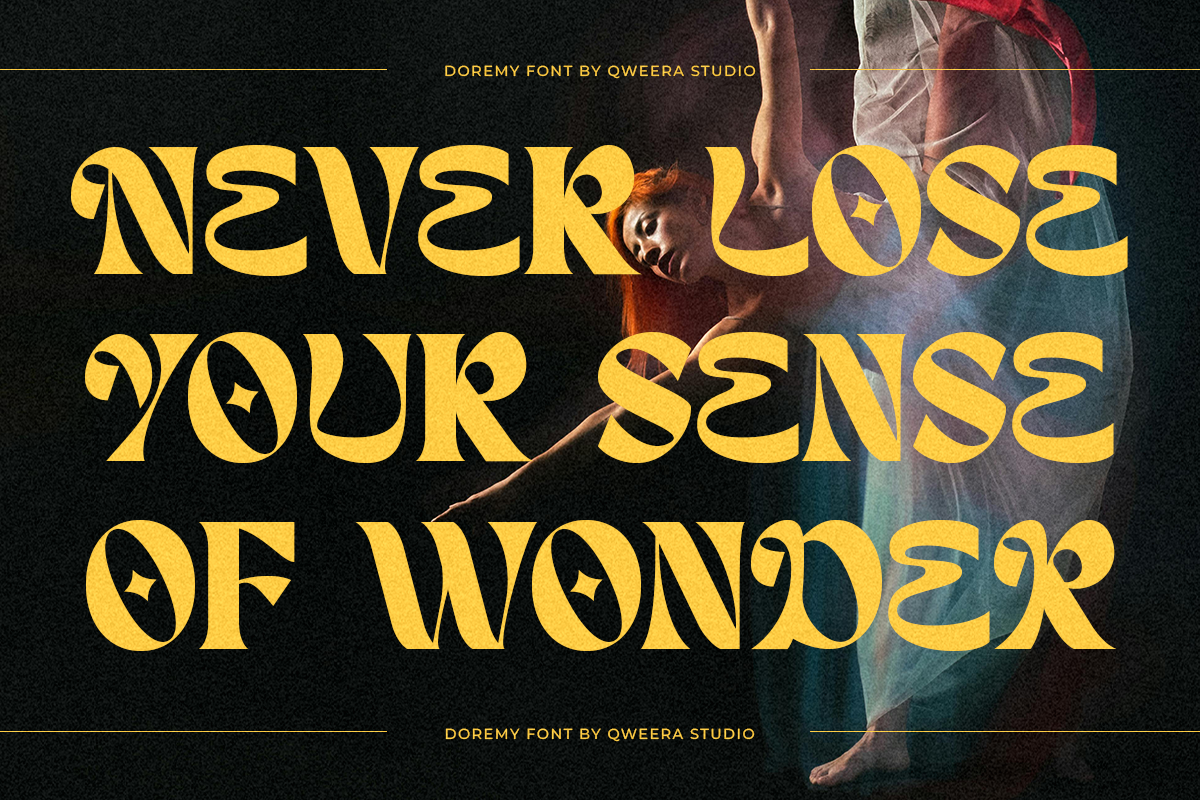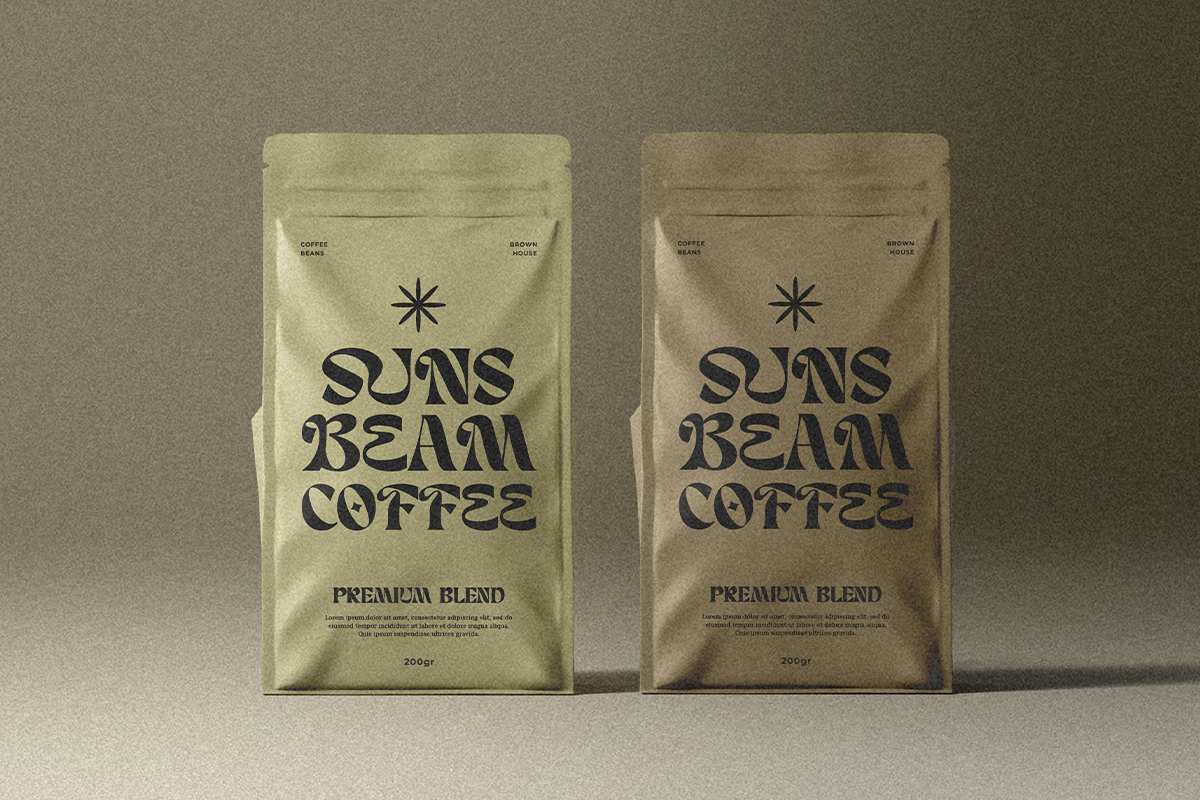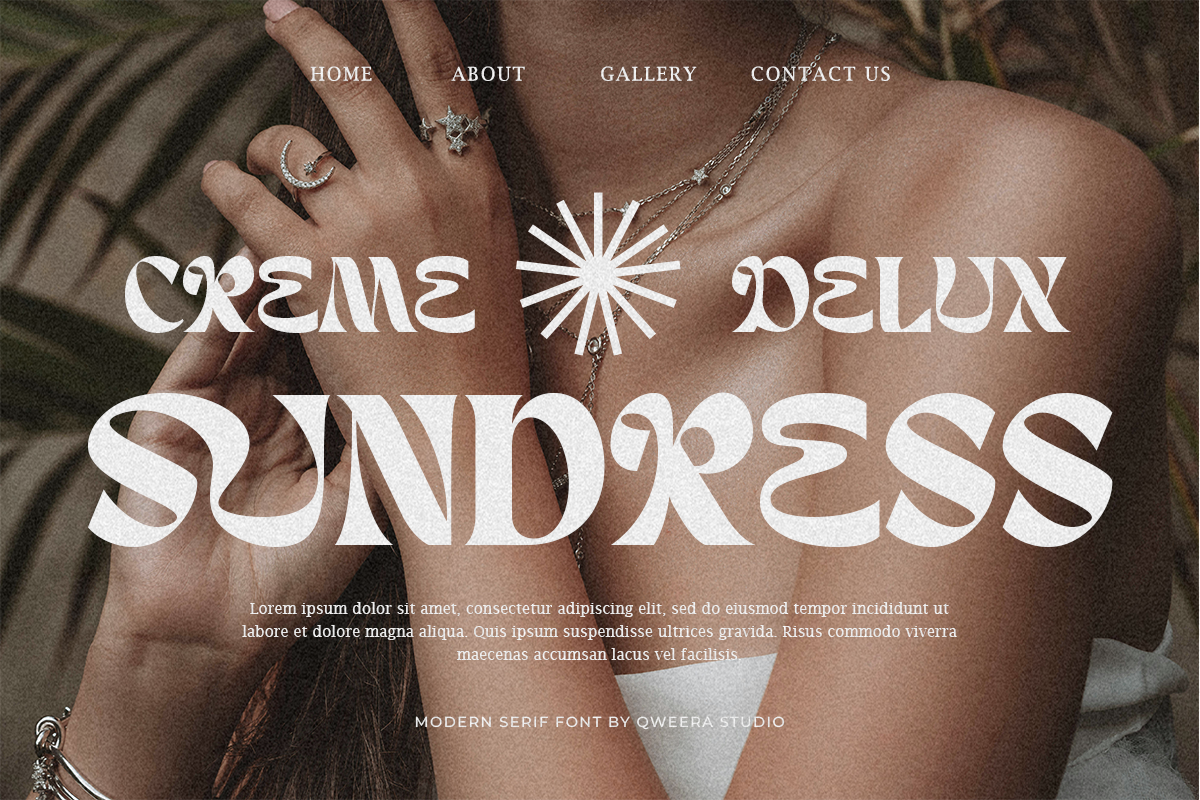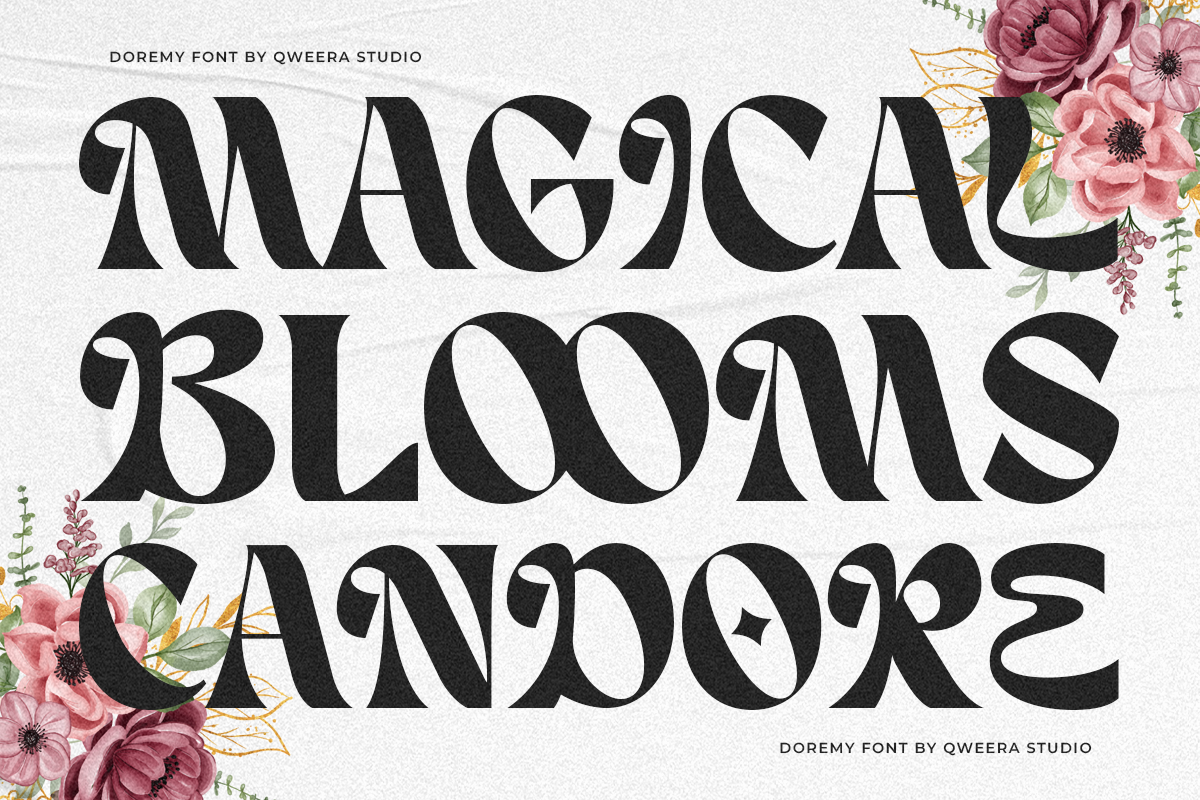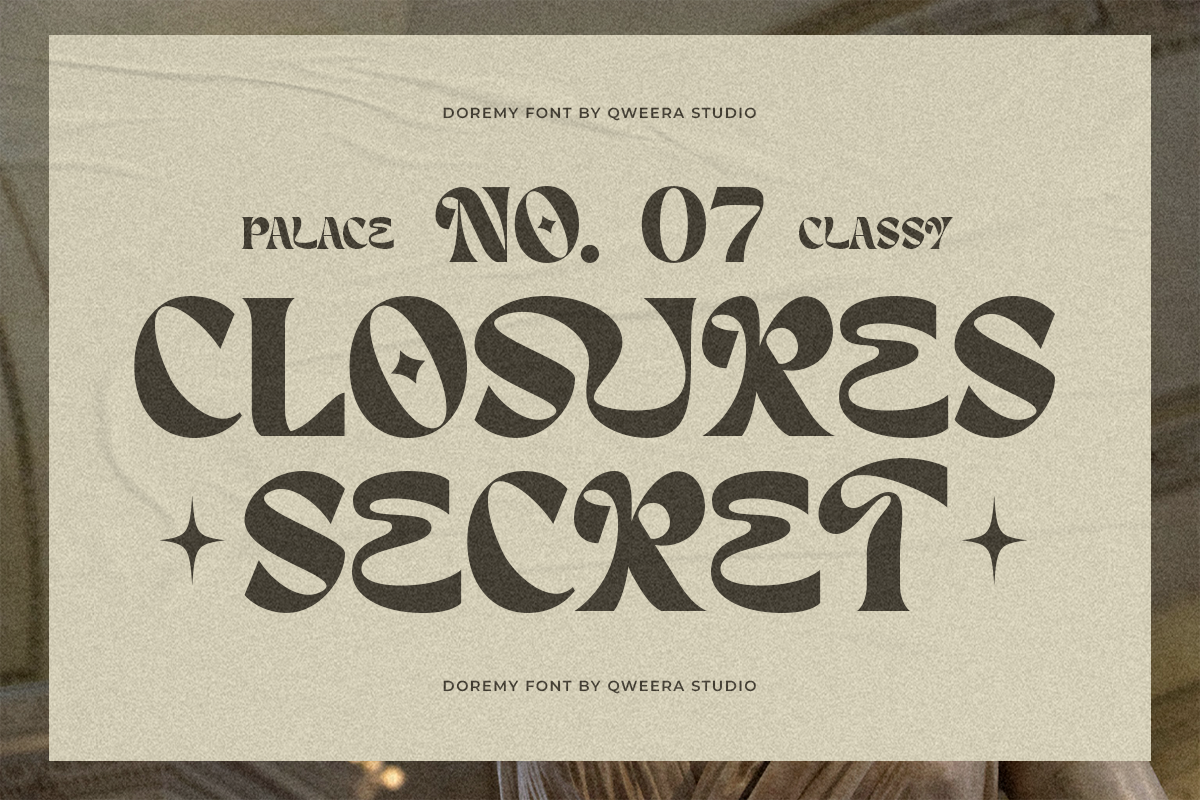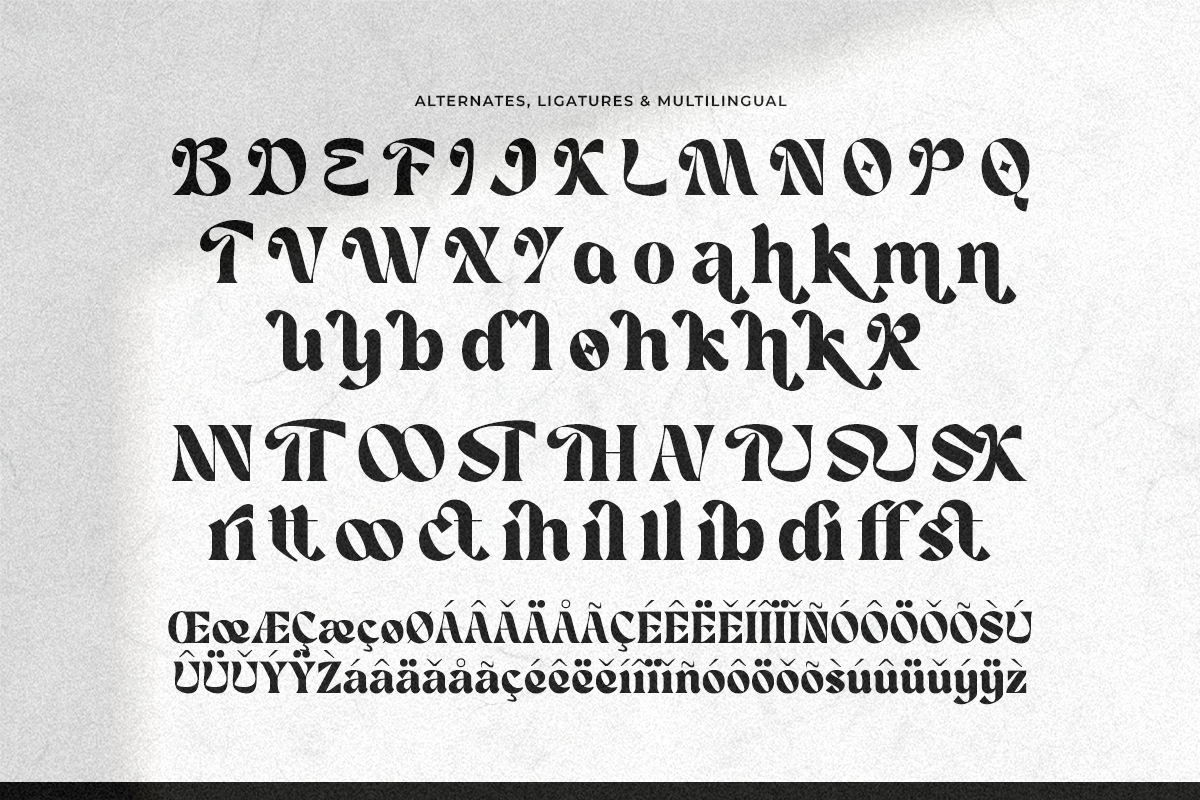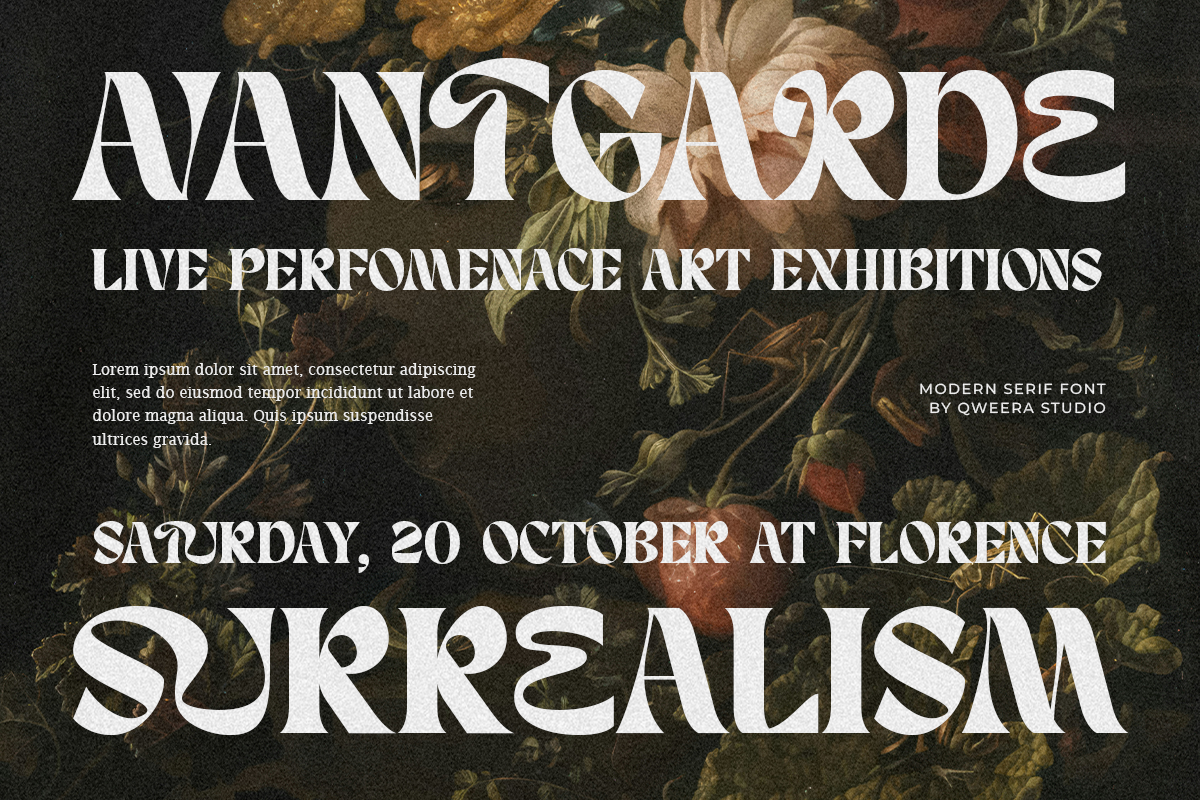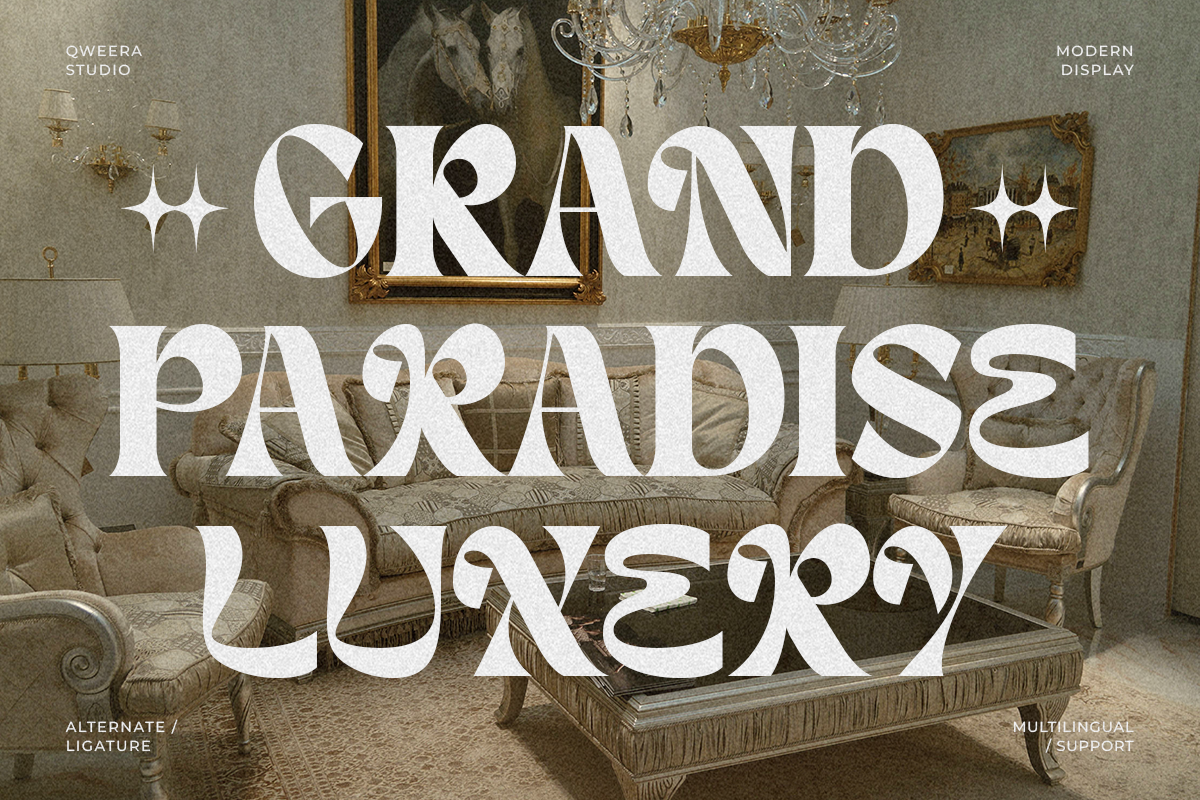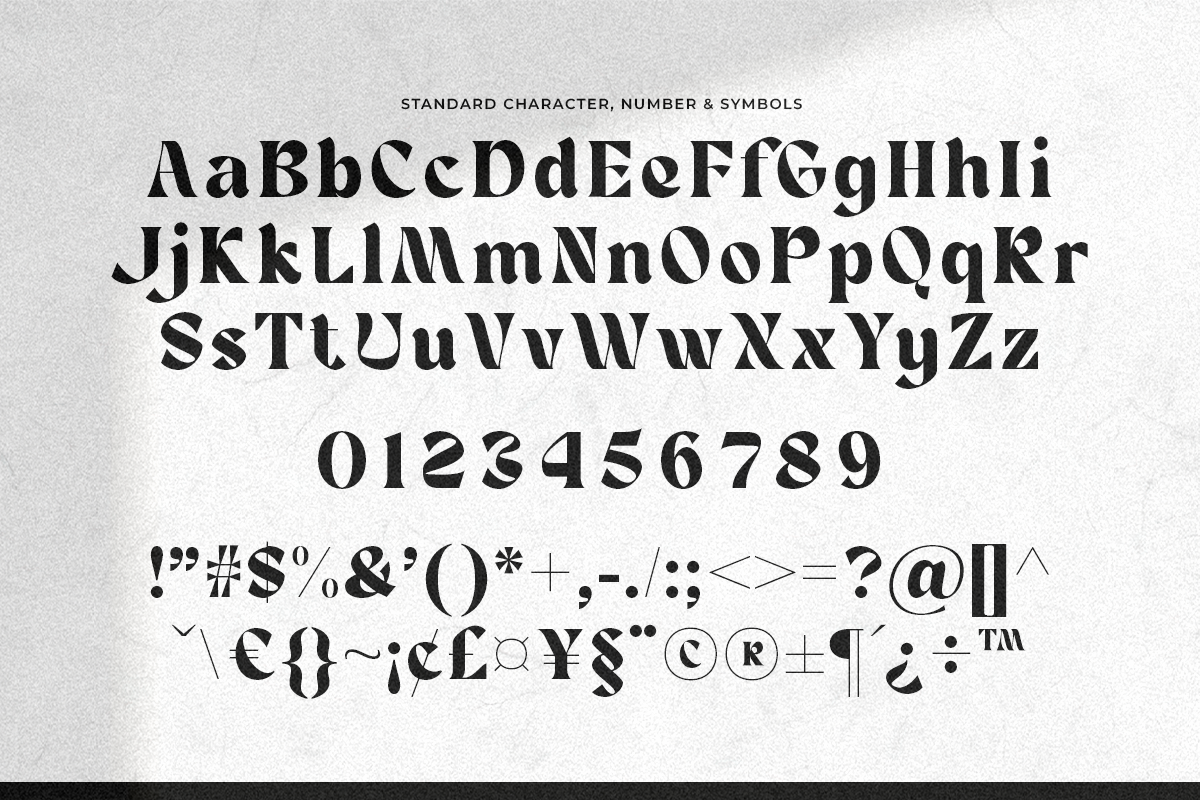
Doremy - Display Serif
Doremy is a Display Serif font that exudes a modern and bold impression. Available in regular, italic, and outline versions, Doremy brings flexibility and uniqueness to every design. This font is equipped with a variety of distinctive alternates and ligatures, making it ideal for branding projects, editorial, and poster design. Combine the elegant and dynamic characteristics of Doremy to create unforgettable visuals.